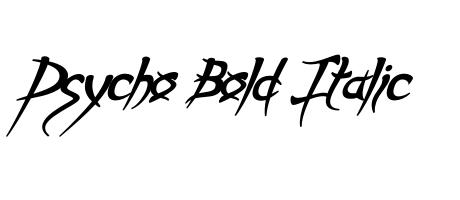
Psycho
By Rémy "Psycho" Demarest
Psycho Bold Italic is a fierce, expressive script font. Its bold strokes and italic slant convey a sense of raw energy and rebellious attitude. The characters are dramatically stylized, with sharp angles and flowing curves intertwined. It's a font that screams personality, perfect for edgy designs and bold statements.